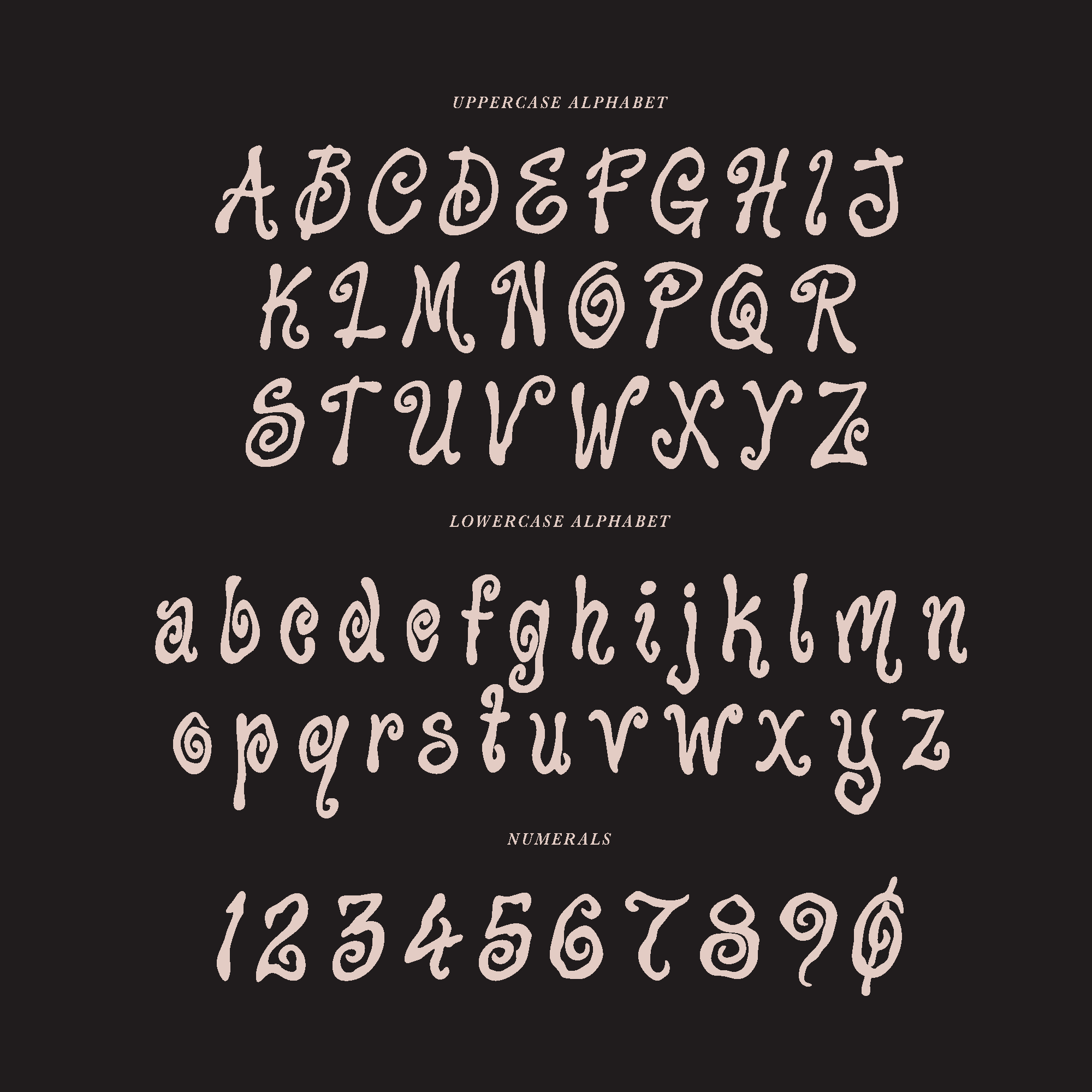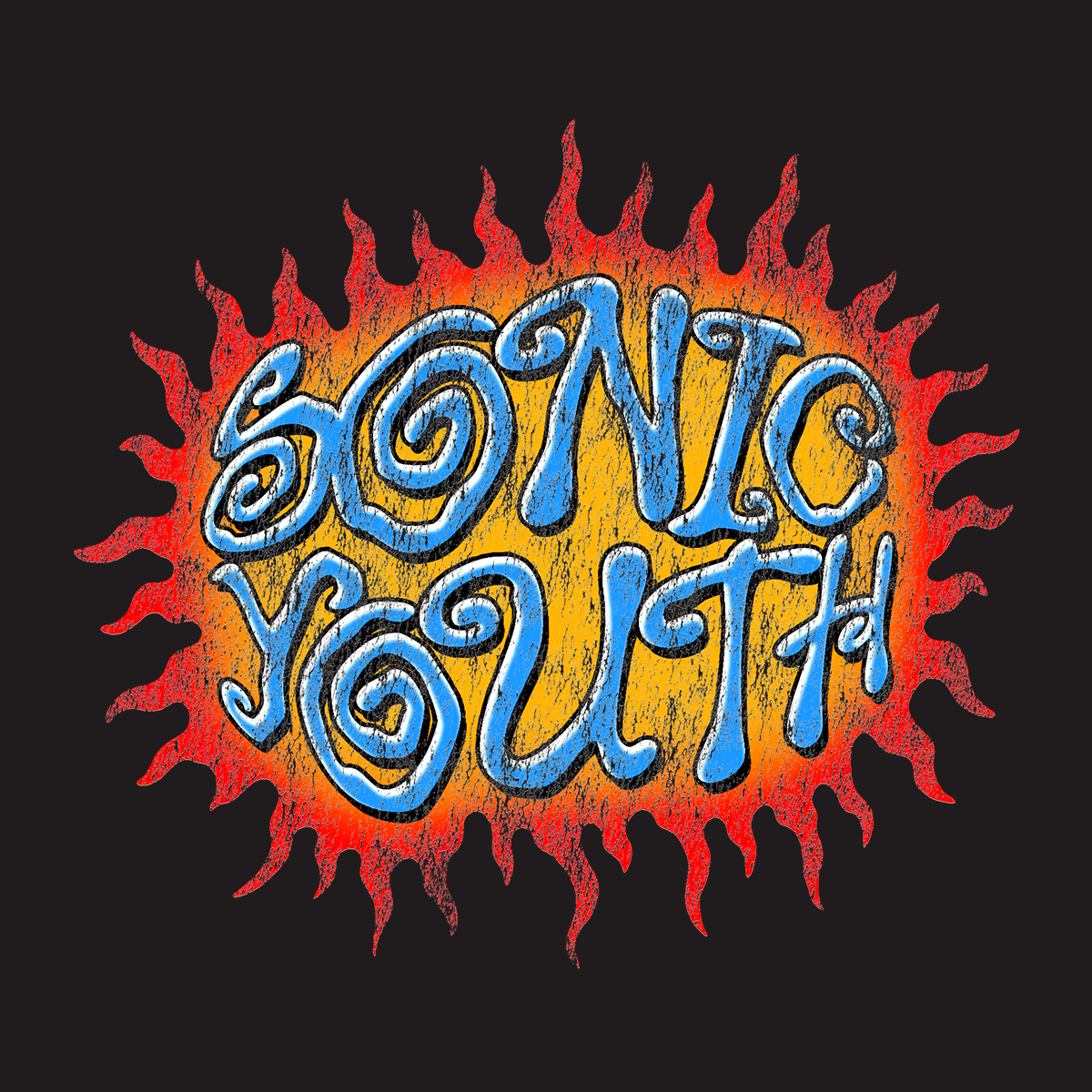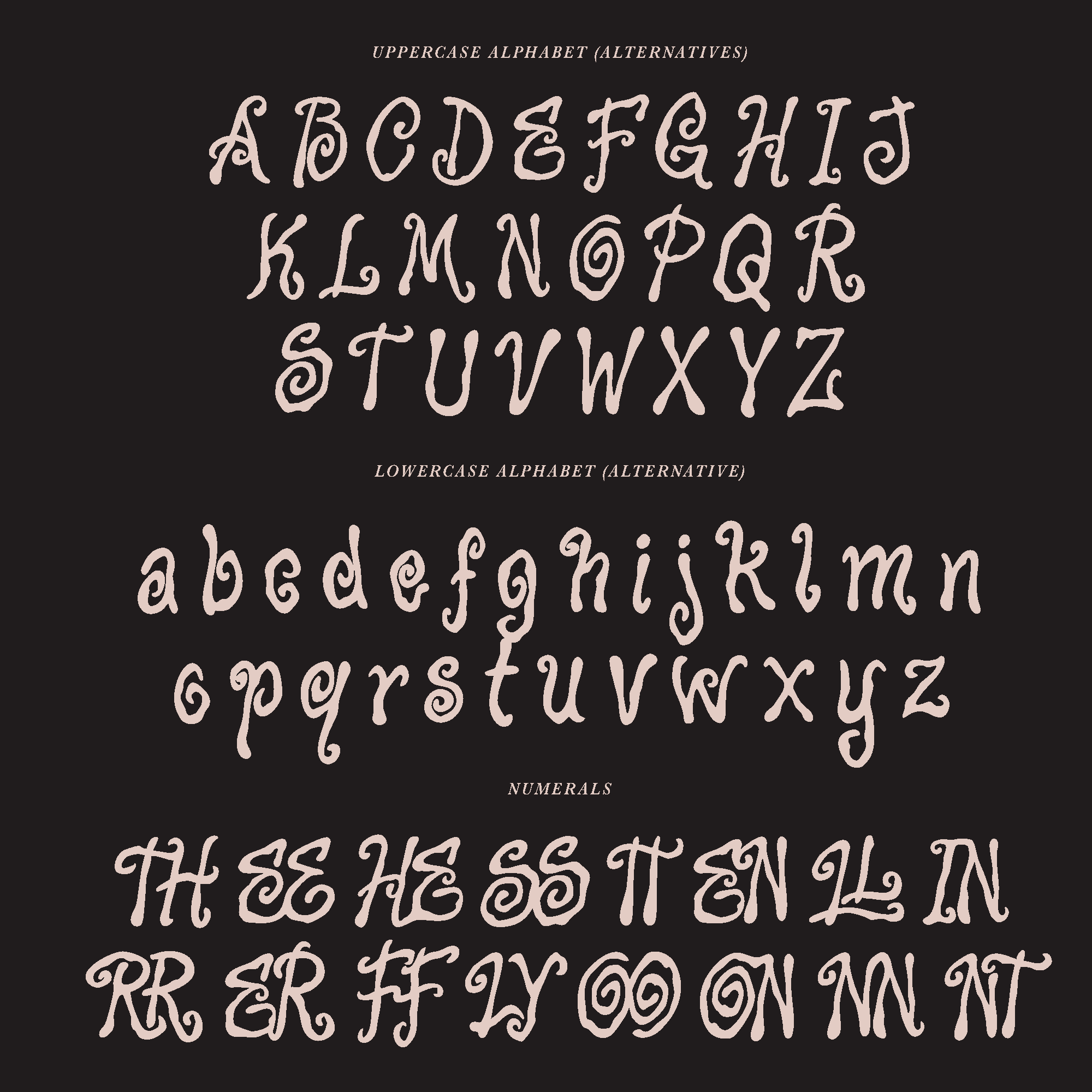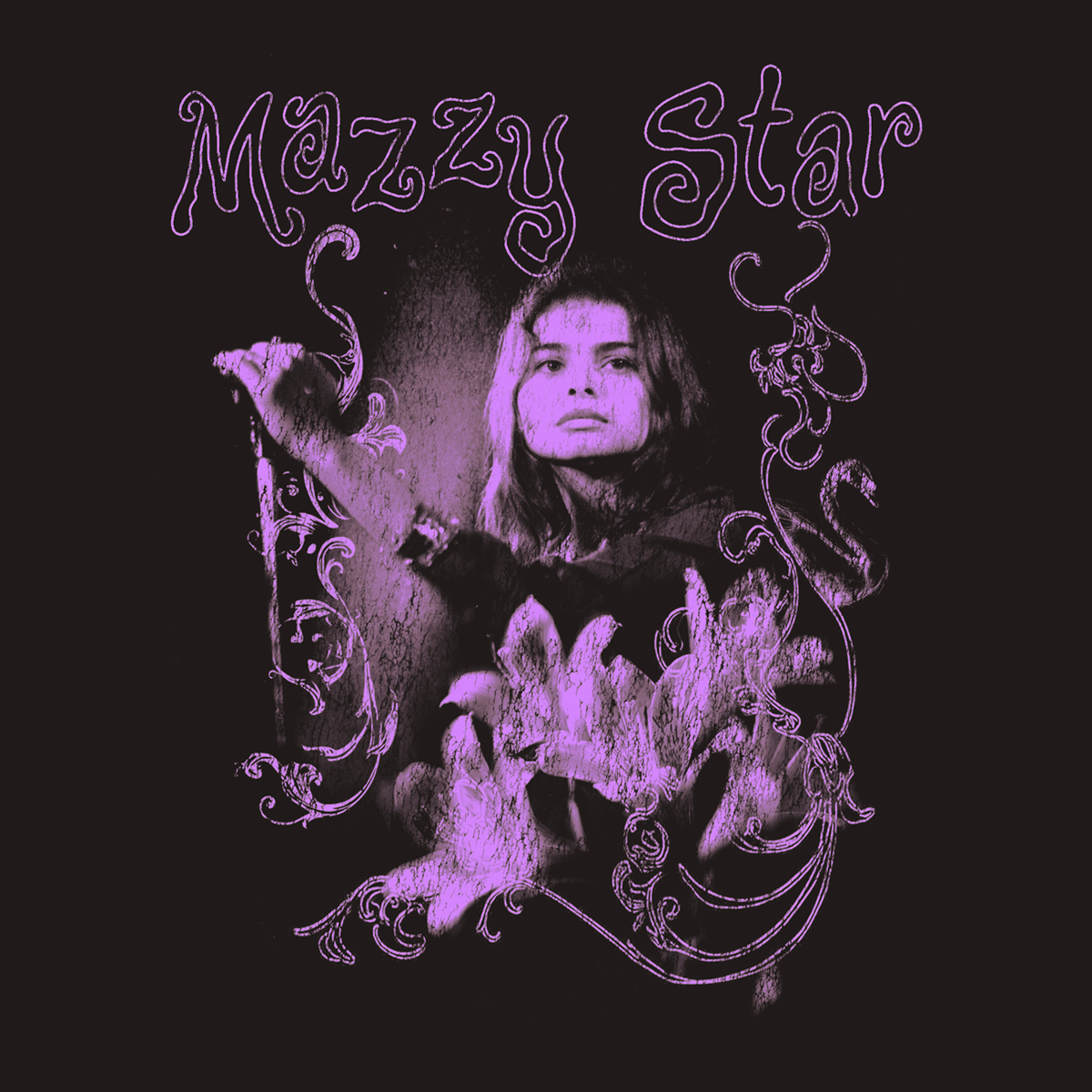
Pixie Dust Font
Pixie Dust is my take on a 90s style grunge font. It's a feast of hand drawn letters that have been designed to mimic the dreamy visual style adopted by bands in that era.
With multiple alternative letter options and bespoke letter combinations it is incredibly easy to replicate the hand drawn lettering look even if you aren't a master lettering artist (or even if you are just on a tight deadline and need to streamline!).
Full Uppercase & Lowercase Alphabet (along with multiple letter variants)
Numbers and essential symbols